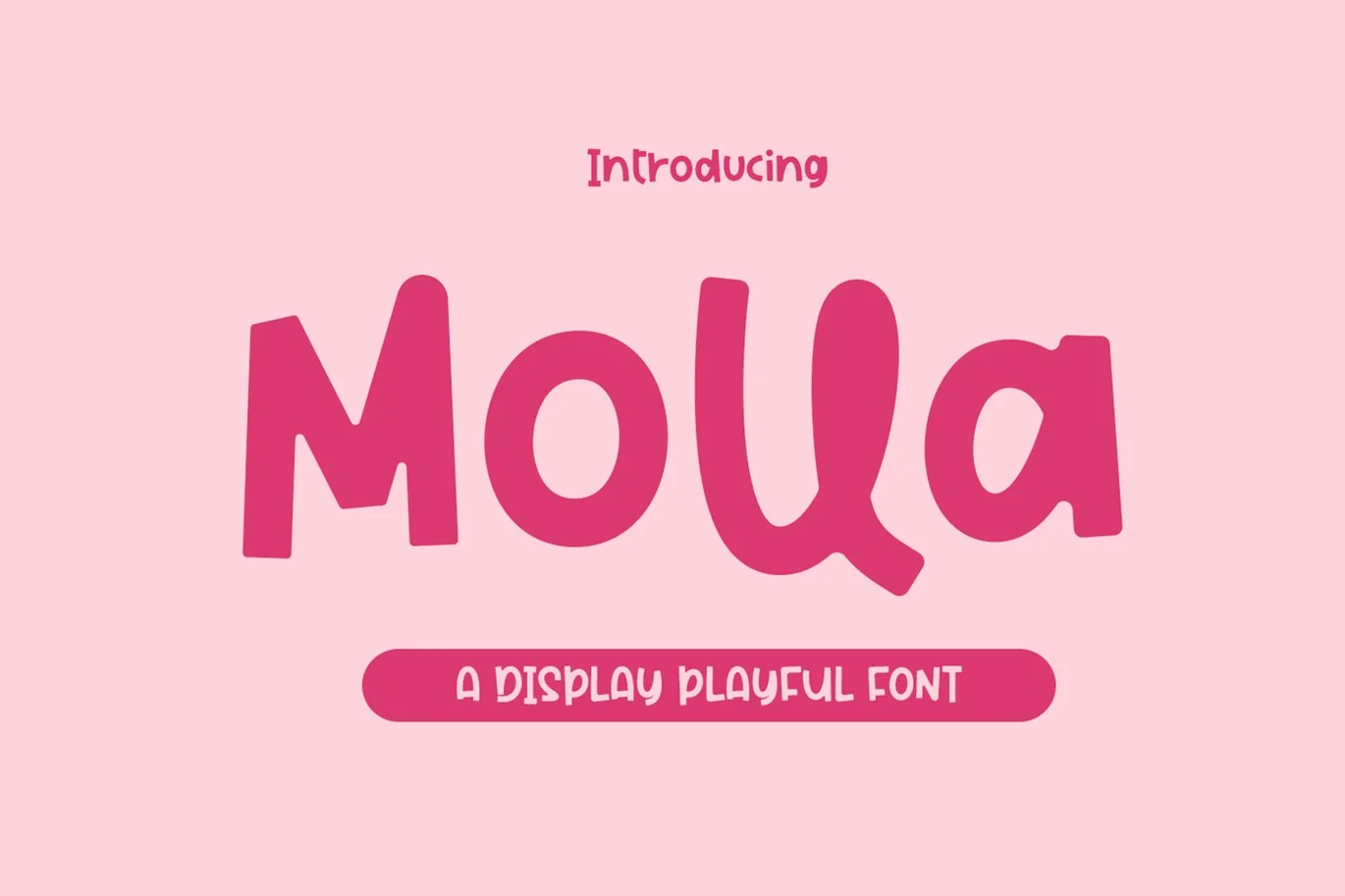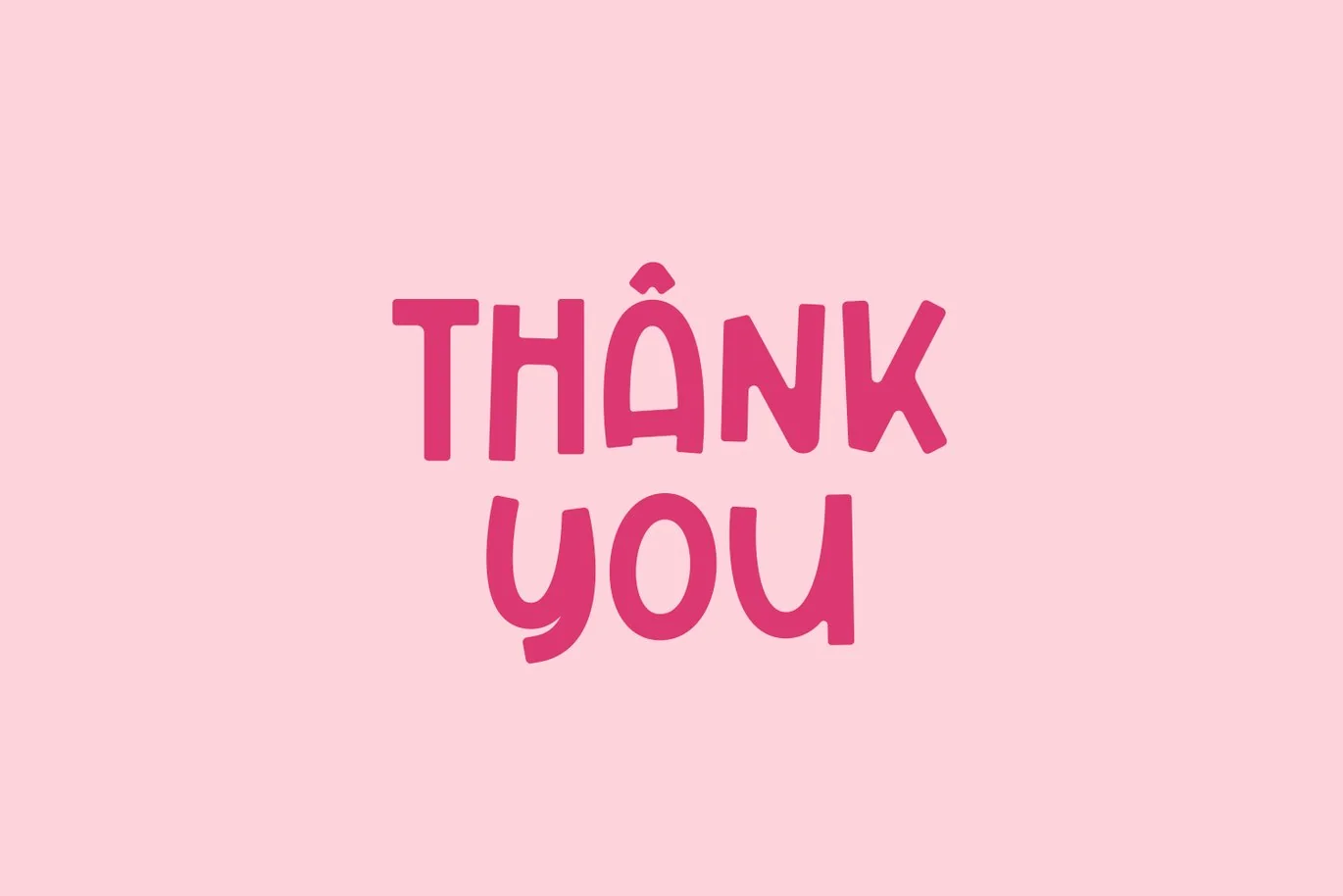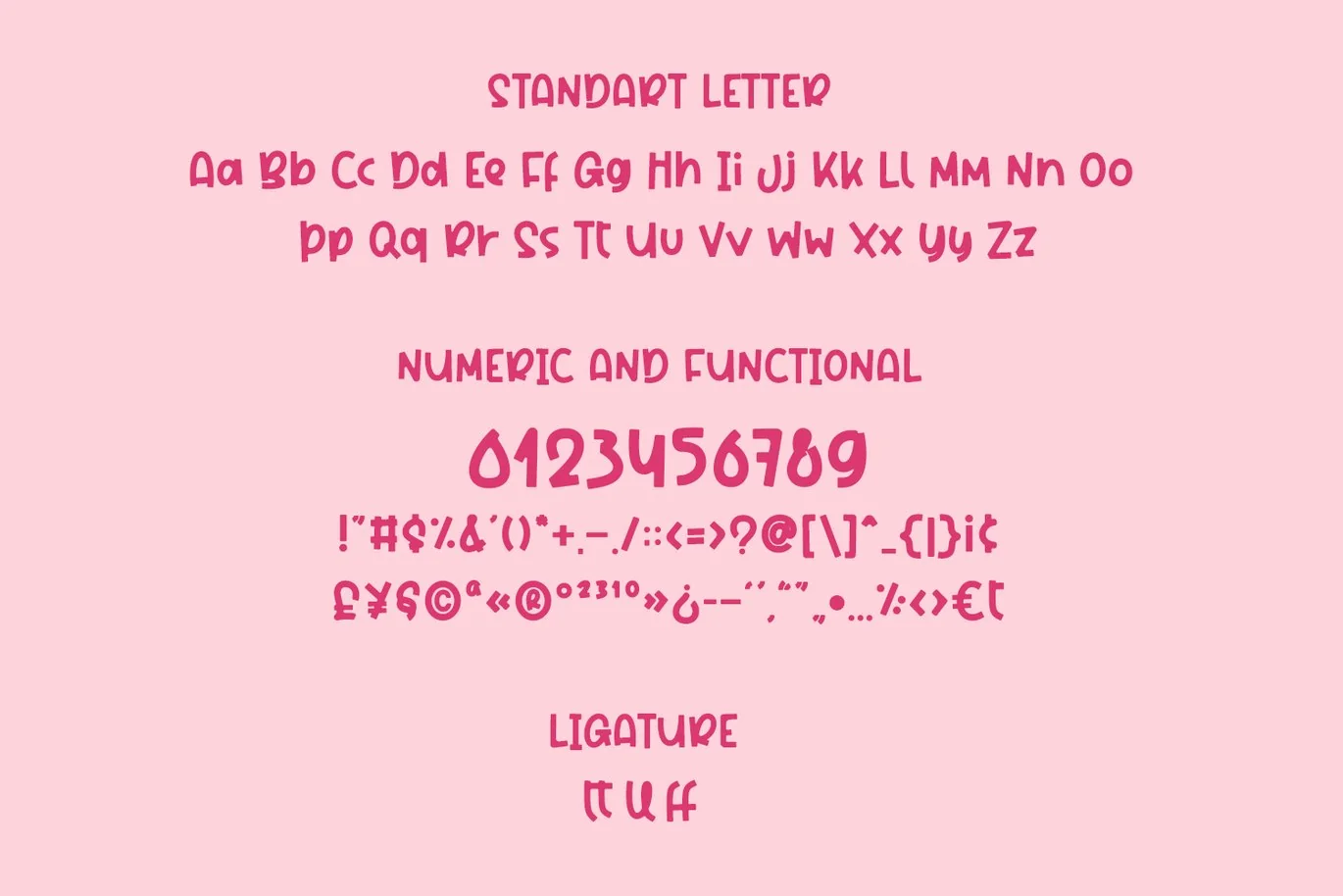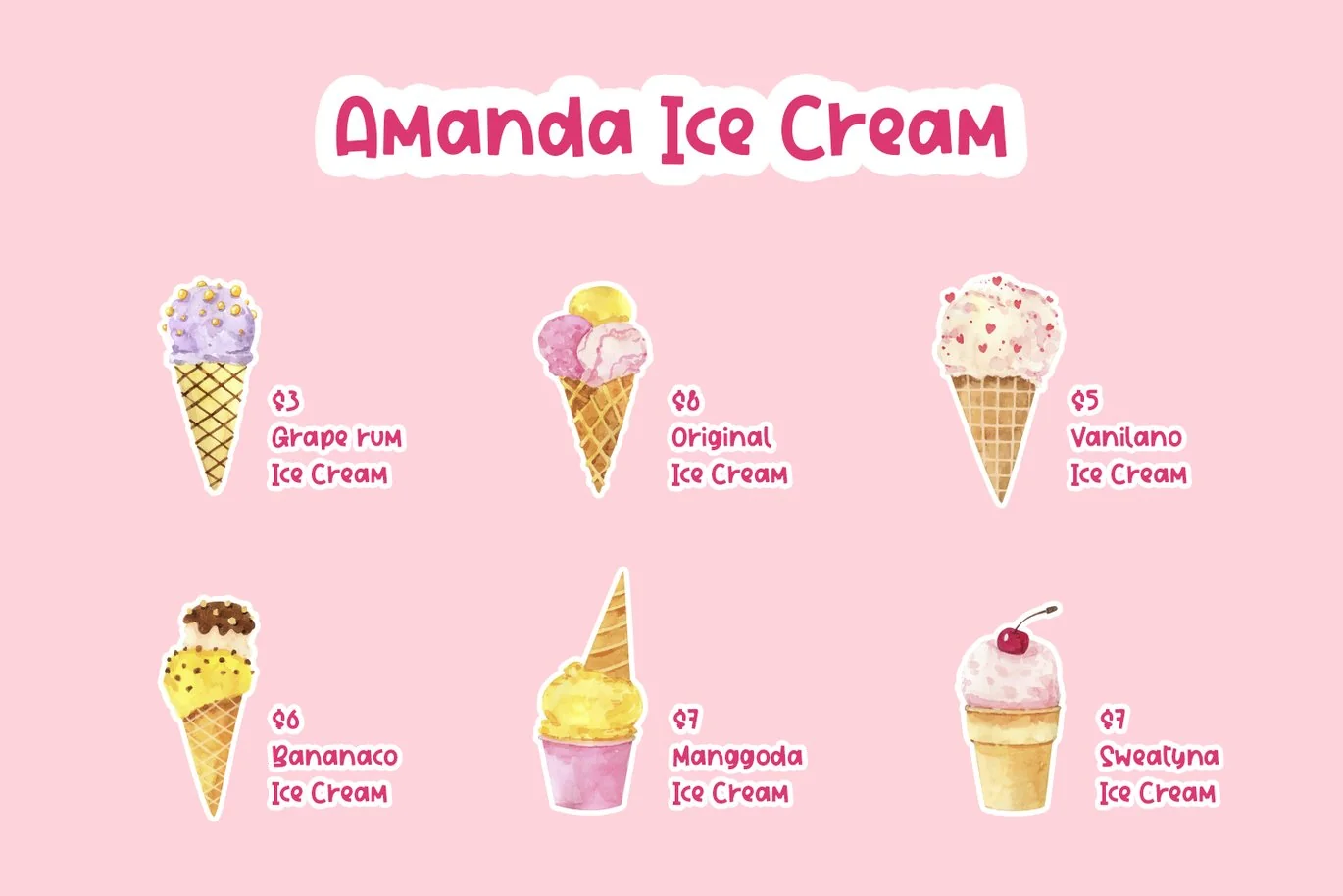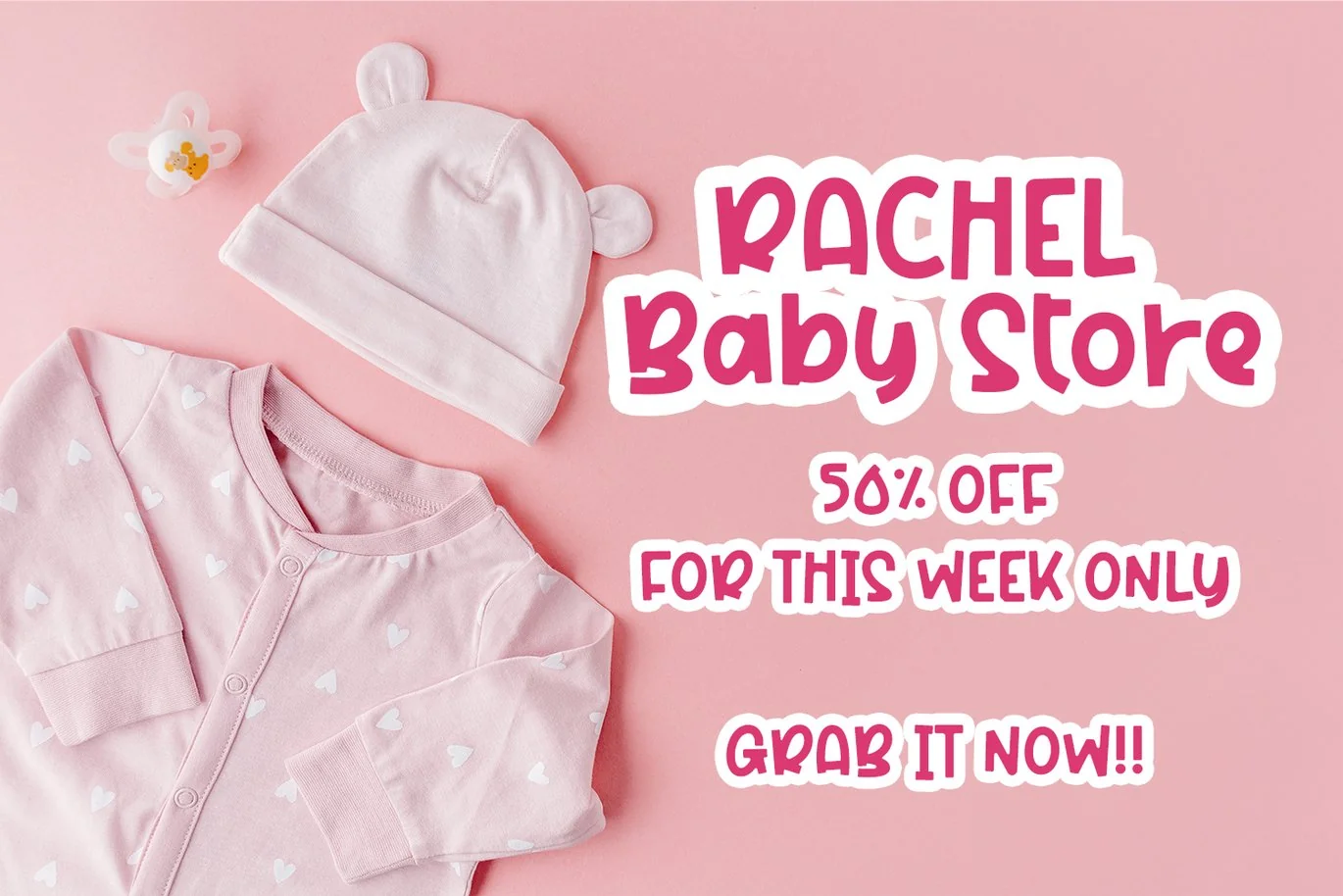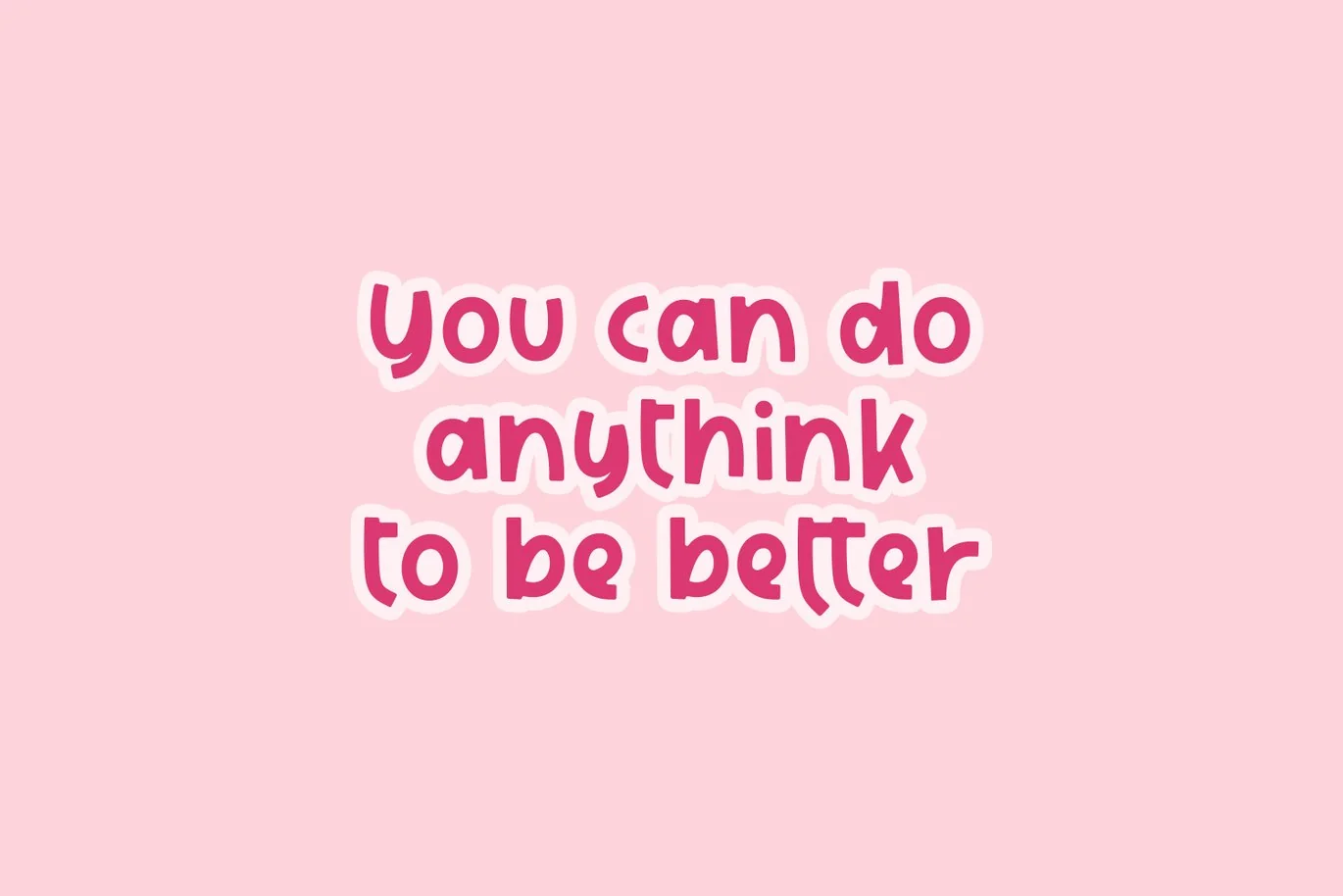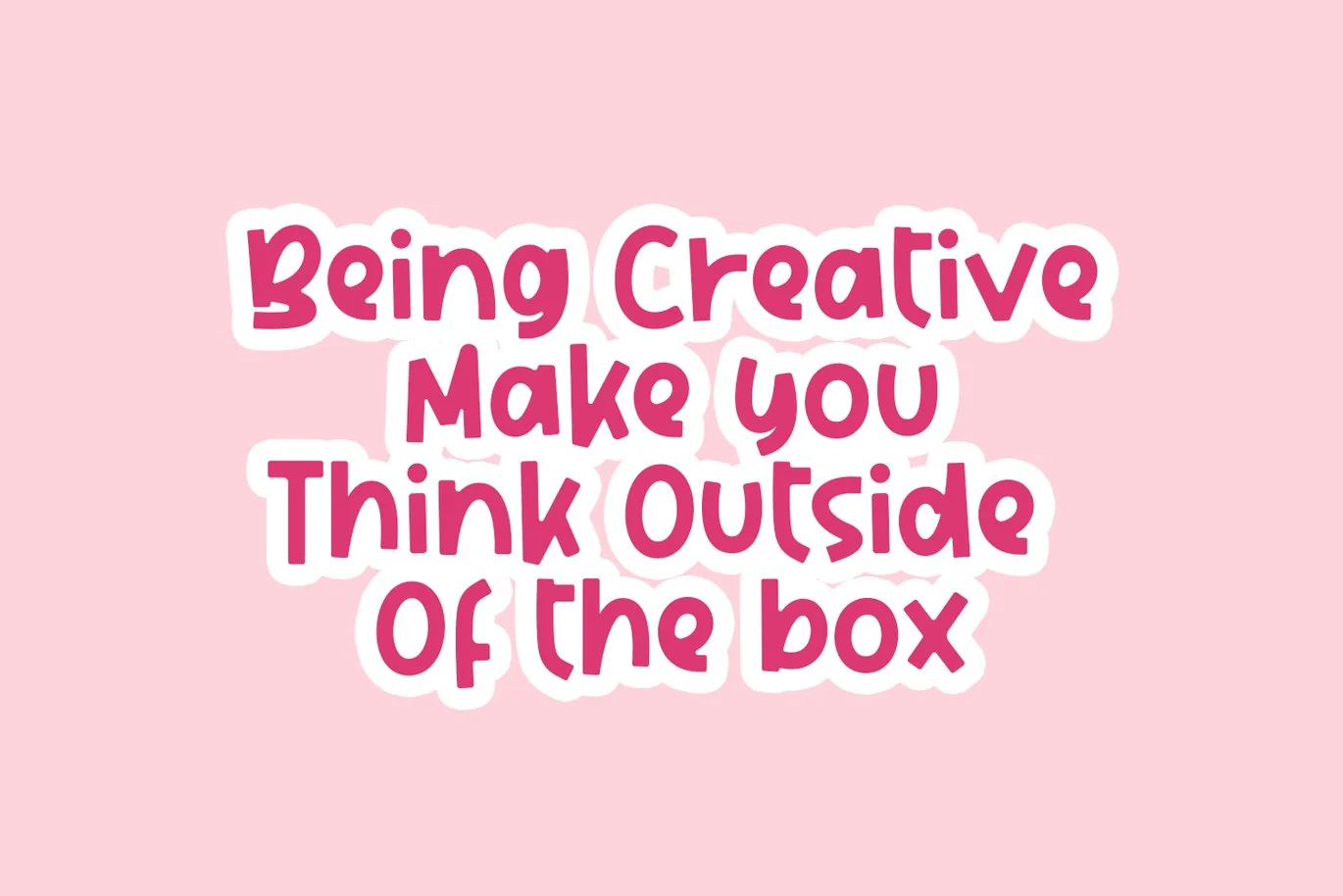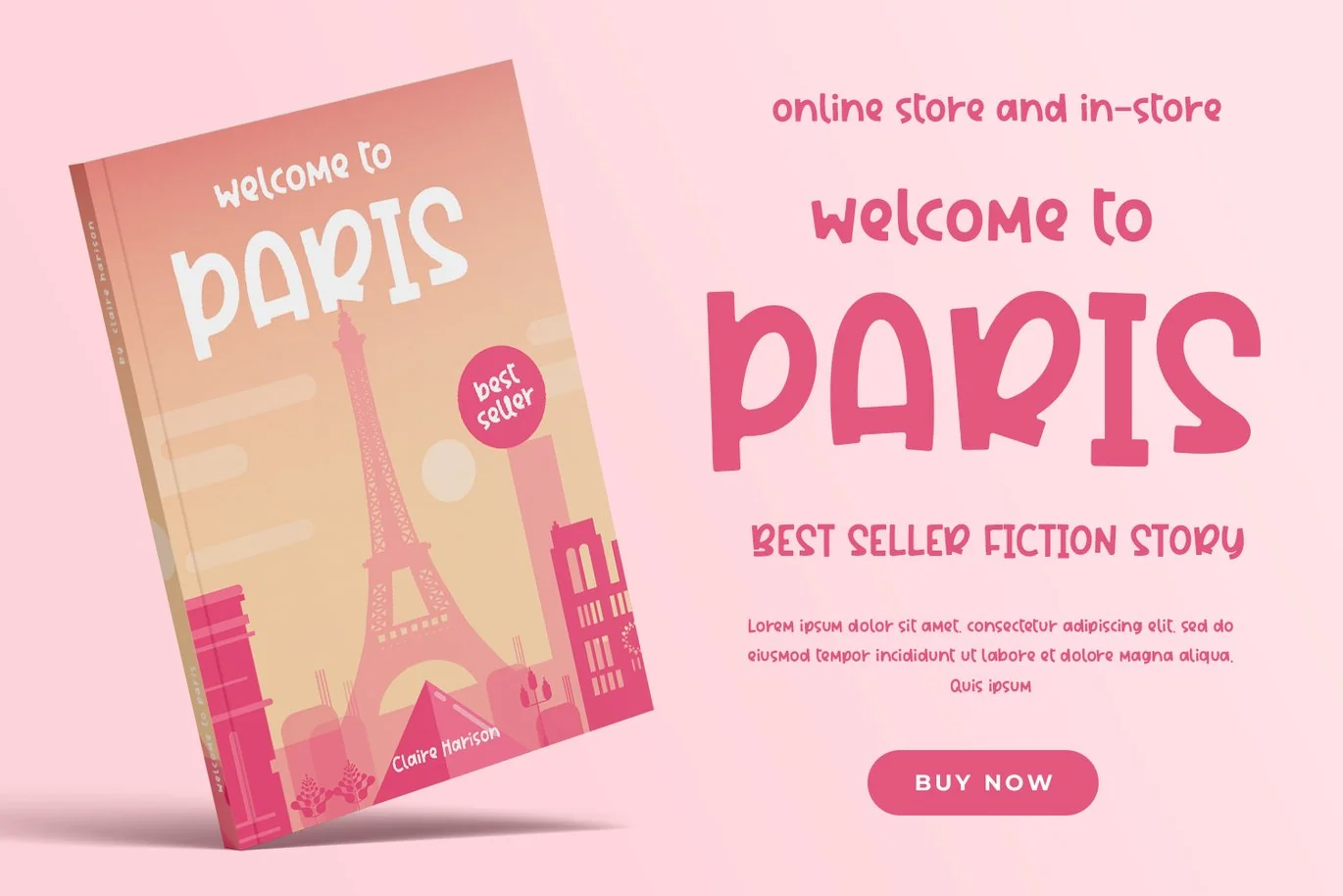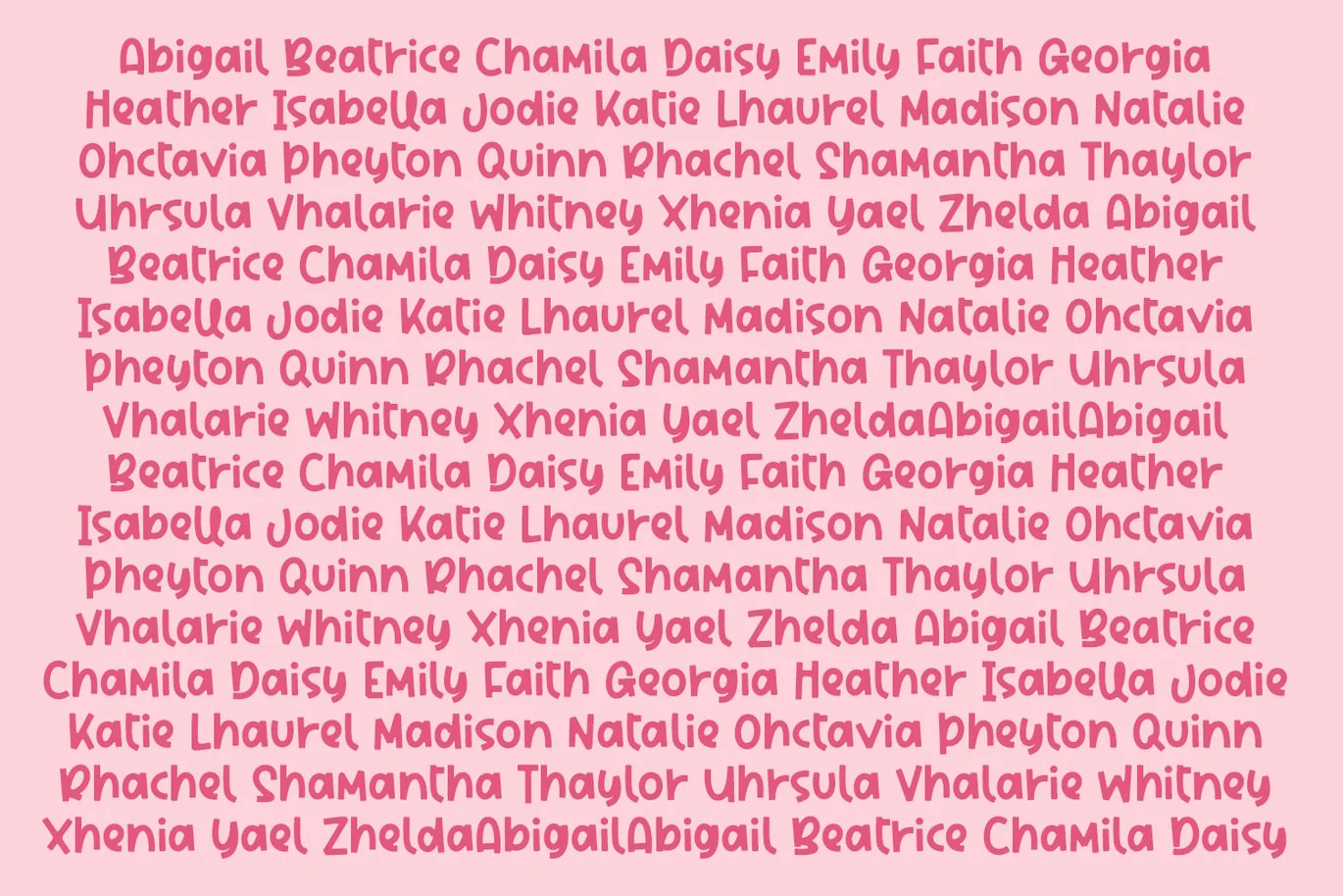
Molla // A Cute Display Font
Hi ladies and gentlement, introducing a newplayfull font is Molla.
Molla – cute look, playful, child and joyful. This font is also includee international accent character for multilinggual langguage, suitable for logos, packaging designs, posters, business card, cover, broadcast, quotes, books, etc. Let’s we go, to make you business go to next level with Molla.